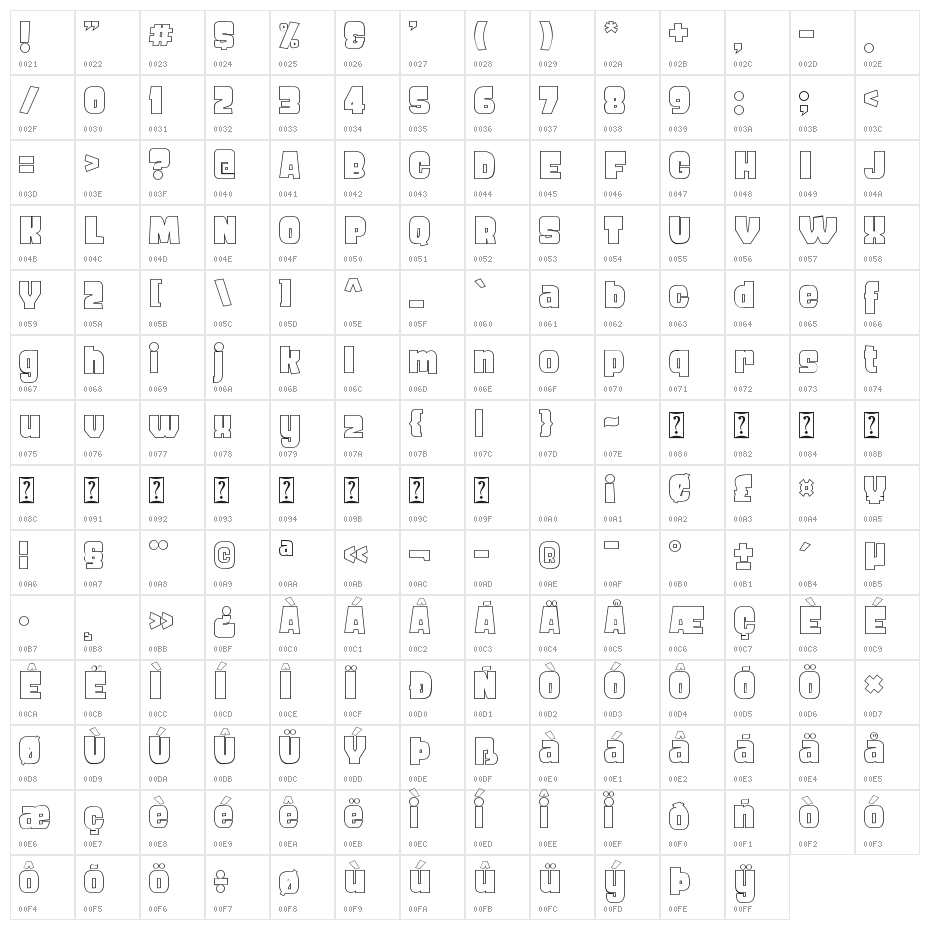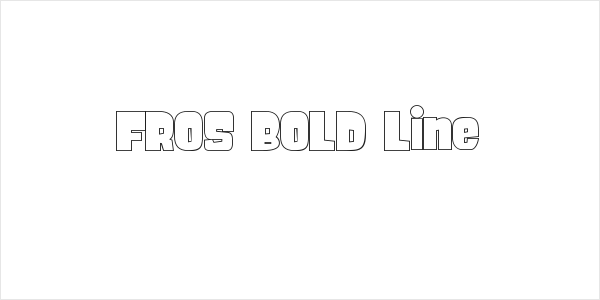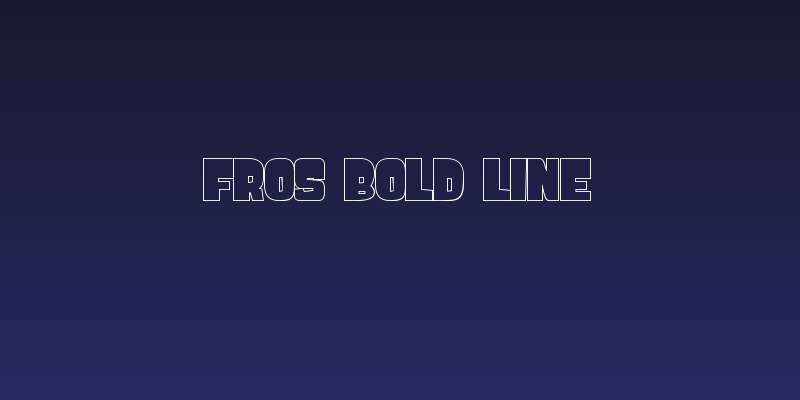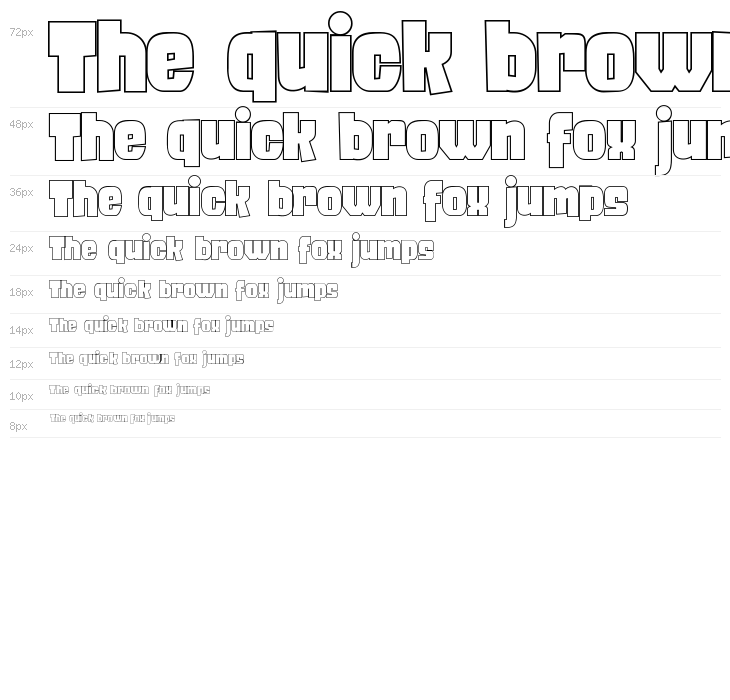
FROS BOLD Line Font
FROS BOLD Line Description
This font features a bold and impactful style with a strong presence. Each character is outlined, creating a hollow effect that adds depth and dimension. The uppercase and lowercase letters maintain a consistent width, enhancing readability while providing a playful and modern aesthetic. The numerals are equally bold, ensuring they stand out in any context. Special characters are designed with the same bold outline, making them cohesive with the rest of the font. This style is perfect for projects that require a strong visual impact, such as posters, headlines, and branding materials.
Proposed ProjectsIdeal for posters, headlines, branding, and any project needing a strong visual impact.